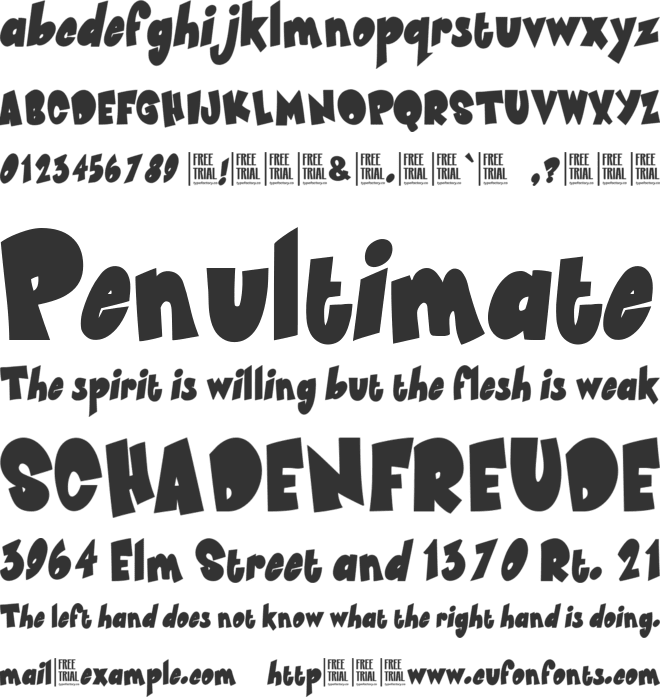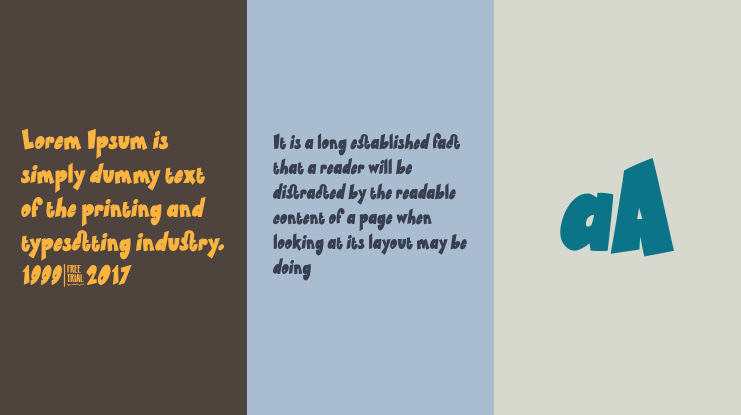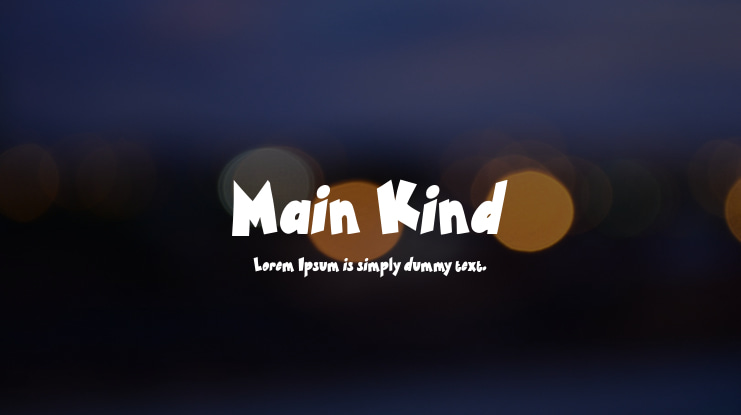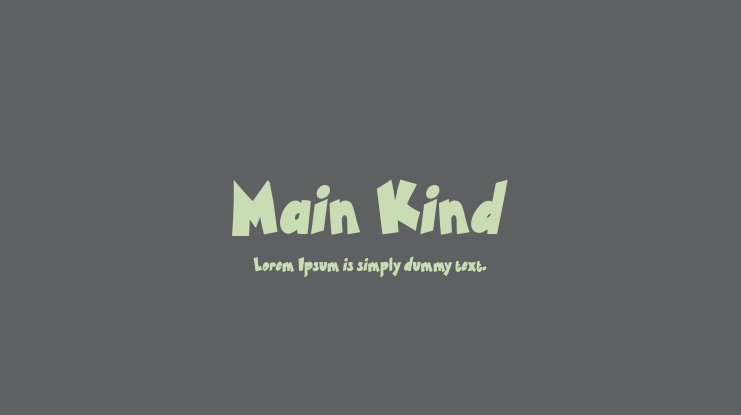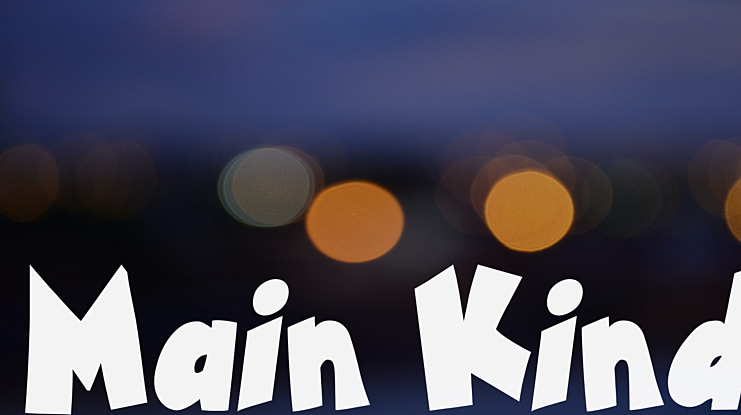
Main Kind Font
Main Kind is a playful comic font with unique style.
Get inspired by its unique charm, and turn any design project into a true standout!